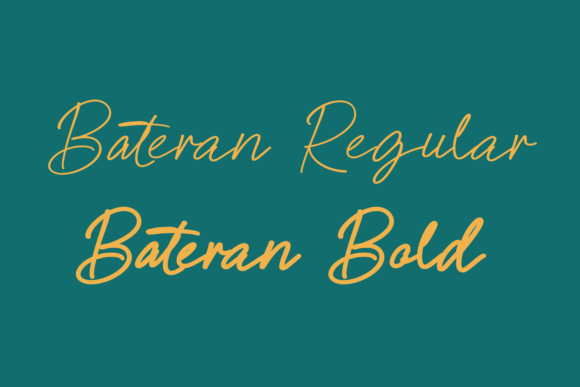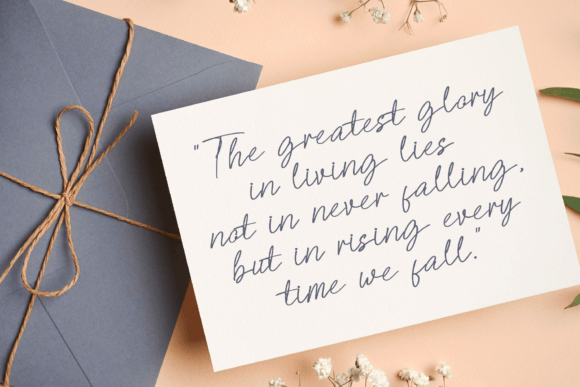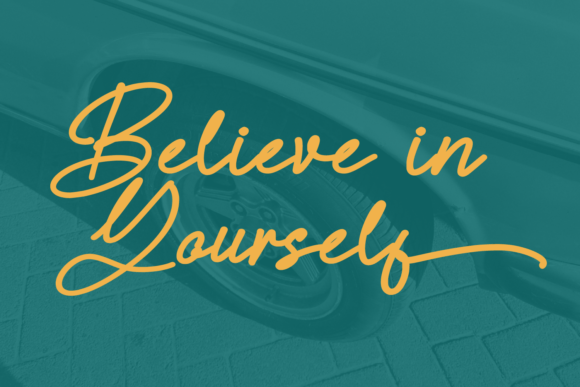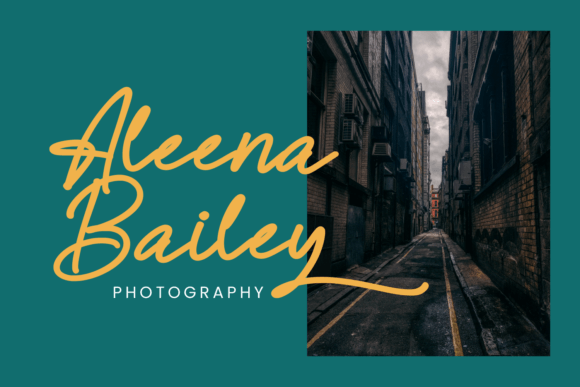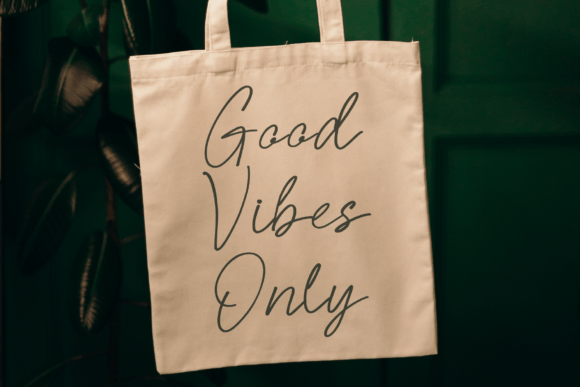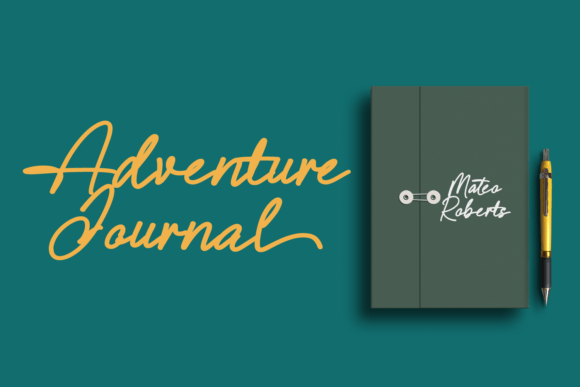
Bateran Font: Elevate Your Designs with Elegance and Sophistication
In the world of typography, a font can make or break a design. For designers and crafters looking to add a touch of luxury and sophistication to their work, Bateran Font is an excellent choice. This elegant signature-style font is designed to impress, with its graceful strokes and refined curves that exude effortless charm and sophistication.
What is Bateran Font?
Bateran Font is a beautifully crafted font that is perfect for logos, branding, and upscale projects. Its elegant design makes it an ideal choice for designers who want to create stunning visual content that stands out from the crowd. Whether you’re working on a logo, brochure, or website, Bateran Font is sure to add a touch of luxury and refinement to your design.
Key Features of Bateran Font
- Elegant Signature-Style Design: Bateran Font boasts a sophisticated and elegant design that is perfect for high-end projects.
- Graceful Strokes and Refined Curves: The font’s smooth strokes and refined curves create a beautiful visual effect that adds a touch of luxury to any design.
- Perfect for Logos, Branding, and Upscale Projects: Bateran Font is designed specifically for logos, branding, and upscale projects, making it an excellent choice for designers who want to create high-end visual content.
Benefits of Using Bateran Font
Using Bateran Font in your designs offers a range of benefits, including:
- Increased Sophistication: Bateran Font adds a touch of luxury and sophistication to any design, making it perfect for high-end projects.
- Improved Brand Image: By using Bateran Font in your branding, you can create a professional and polished image that resonates with your target audience.
- Enhanced Visual Appeal: The font’s elegant design and smooth strokes create a beautiful visual effect that grabs attention and leaves a lasting impression.
Who Can Benefit from Bateran Font?
Bateran Font is perfect for a range of designers and crafters, including:
- Graphic Designers: Bateran Font is an excellent choice for graphic designers who want to create stunning visual content for their clients.
- Branding Experts: The font’s elegant design makes it perfect for branding experts who want to create a professional and polished image for their clients.
- Logos and Identity Designers: Bateran Font is designed specifically for logos and identity design, making it an excellent choice for designers who specialize in these areas.
- Crafters and Makers: Bateran Font is also perfect for crafters and makers who want to add a touch of luxury and sophistication to their handmade products.
In conclusion, Bateran Font is an elegant signature-style font that adds a touch of luxury and sophistication to any design. With its graceful strokes and refined curves, this font is perfect for logos, branding, and upscale projects. Its PUA encoded design makes it simple to use and customize, and its range of benefits makes it an excellent choice for designers and crafters who want to create high-end visual content.